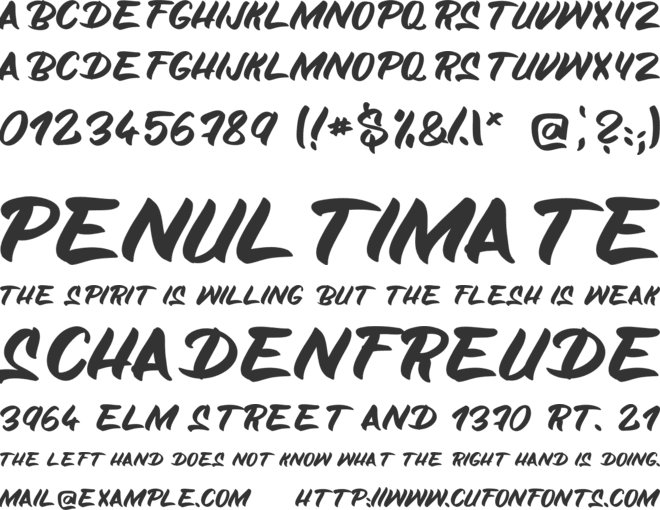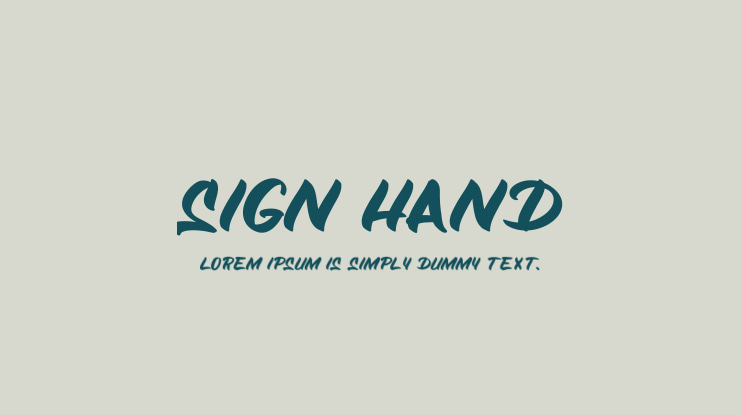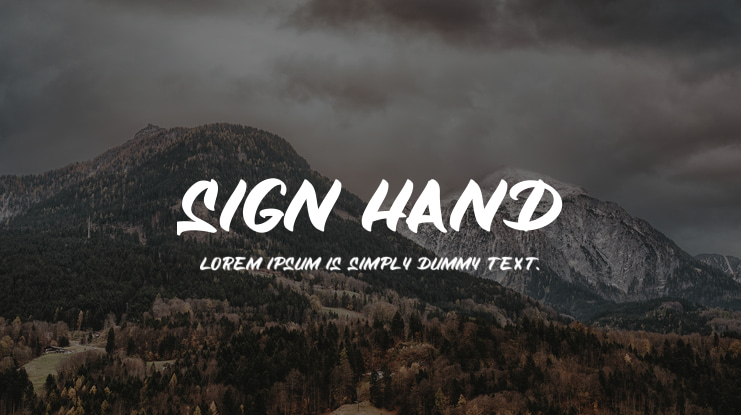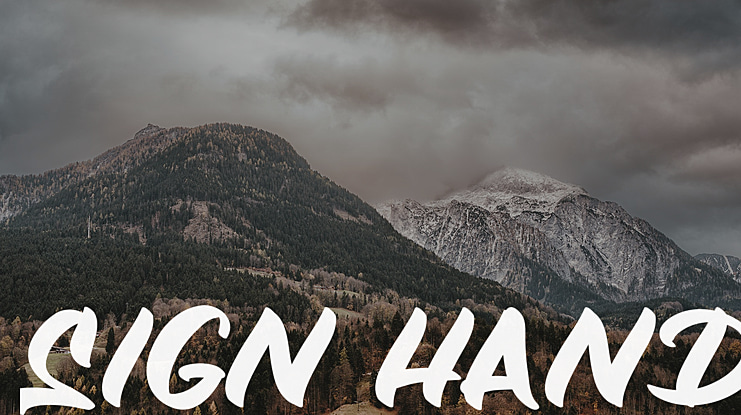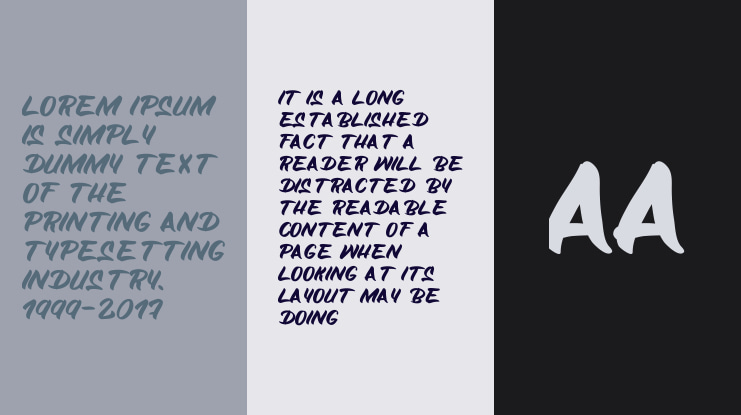
Sign Hand Font
SIGN HAND - handdrawn signpainting font -
All Caps font, with nunbers, currancy signs, some ligatures and additional character. Use the Caps only, they have better kernings!